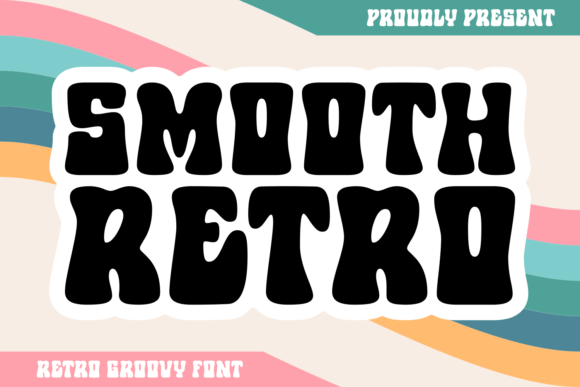
Embrace the world of vintage aesthetics with Smooth Retro Font, a display font that exudes charm and nostalgia. Inspired by the golden era of design, this font captures the essence of the past with its playful retro vibes. Immerse yourself in a realm of creativity and let Smooth Retro Font guide you on an artistic journey.
With its versatility, Smooth Retro Font effortlessly adapts to a myriad of applications. Whether you're crafting captivating greeting cards, designing eye-catching headlines, or adding a touch of retro flair to your creative projects, this font is your infallible companion. Its timeless style blends seamlessly with modern aesthetics, creating a captivating fusion of old and new.
Unleash your imagination and explore the boundless possibilities that Smooth Retro Font offers. Let your designs radiate with a unique charm, evoking a sense of nostalgia and elegance. Its meticulous detailing and harmonious curves bestow a touch of sophistication upon any project, leaving an indelible mark on your audience.
Step into the realm of retro artistry and let Smooth Retro Font ignite your creativity. Its enchanting allure and captivating presence will transform your designs into masterpieces. Embrace the allure of the past and propel your creations into the spotlight with this remarkable font.